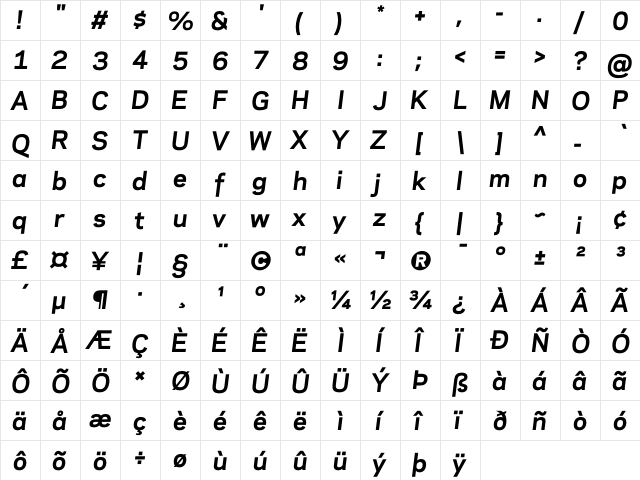
Galaxie Polaris Bold Italic Font Preview
Design Context for Galaxie Polaris Typeface
Galaxie Polaris takes a measured approach to typography — its balanced proportions and neutral character make it a reliable workhorse for both digital and print work. Its italic angle brings a sense of urgency and motion to the letterforms. The heavy weight commands attention and anchors typographic hierarchies.
Pro Tip: Try Galaxie Polaris for annotation and caption copy alongside an upright companion — the contrast in angle creates a dynamic but ordered typographic system.